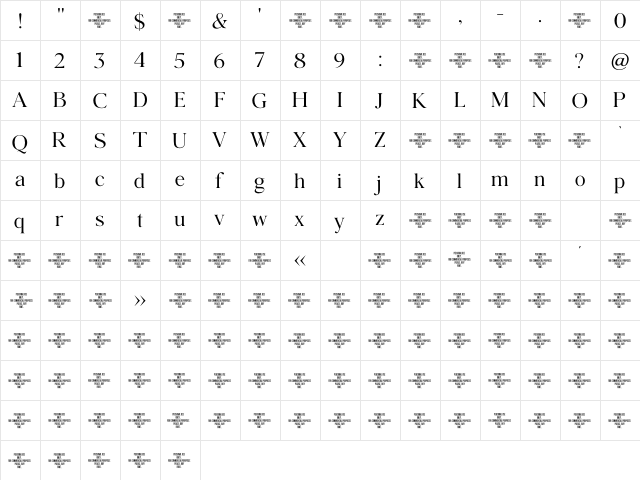
Agatho Light
| Designer | Andrii Shevchyk |
Design Context for Agatho Typeface
Agatho offers clean, dependable letterforms without strong stylistic allegiance, making it a practical choice for designers who need flexibility. Its slender proportions lend an understated elegance to any composition.
Pro Tip: Pair Agatho with a font of contrasting weight or personality to build a more expressive typographic hierarchy.